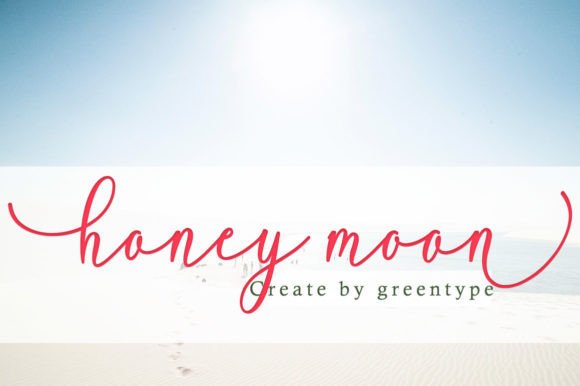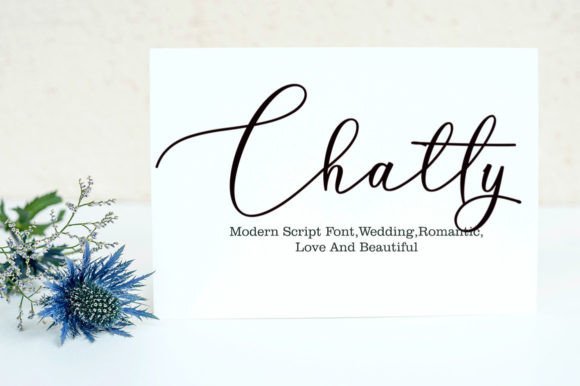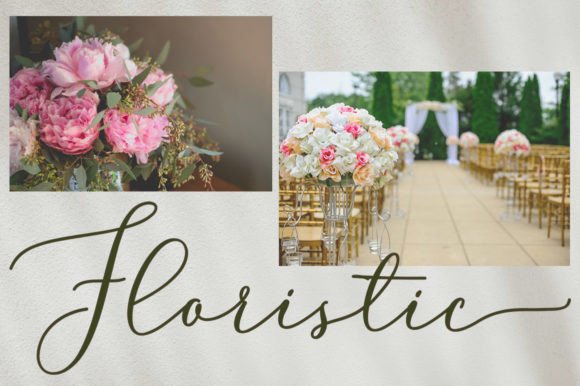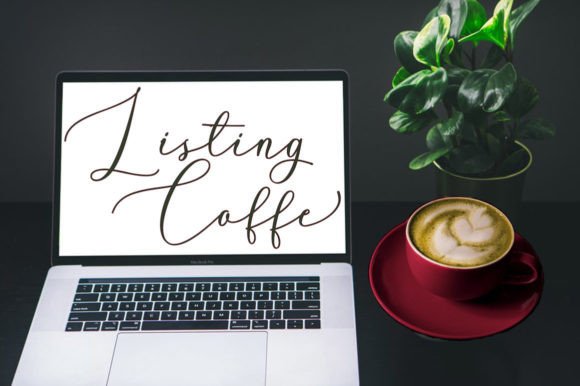
Introducing Chatty Font: The Delicate and Elegant Handwritten Font
Are you a designer or crafter looking for a font that exudes elegance and sophistication? Look no further than Chatty Font, a delicate and elegant handwritten font that is sure to capture your heart. With its distinct and well-balanced letters, Chatty Font is a masterpiece that can elevate any design to new heights.
The Characteristics of Chatty Font
Chatty Font is a handwritten font that boasts a unique and stylish aesthetic. Its delicate and elegant letters are carefully crafted to create a sense of refinement and poise. The font’s distinct characteristics include:
- Delicate and elegant letters: Each letter in Chatty Font is meticulously designed to convey a sense of sophistication and elegance.
- Well-balanced letters: The font’s letters are perfectly balanced, creating a sense of harmony and stability.
- Versatile style: Chatty Font is incredibly versatile, making it suitable for a wide range of design applications.
The Benefits of Using Chatty Font
So, why should you choose Chatty Font for your design projects? Here are just a few benefits of using this beautiful font:
- Adds elegance to your designs: Chatty Font can instantly elevate your designs, adding a touch of sophistication and refinement.
- Perfect for a variety of design applications: Whether you’re designing a logo, creating a social media graphic, or crafting a website, Chatty Font is a versatile choice that can adapt to any design need.
- Easy to read and understand: Despite its delicate and elegant nature, Chatty Font is surprisingly easy to read and understand, making it perfect for body text and headings.
How to Use Chatty Font in Your Designs
Using Chatty Font in your designs is easy and straightforward. Here are a few tips to get you started:
- Pair it with other fonts: Chatty Font pairs beautifully with other fonts, creating a stunning contrast that can add visual interest to your designs.
- Experiment with different colors: Chatty Font looks great in a variety of colors, from soft pastels to bold and bright hues.
- Use it for headings and body text: Chatty Font is suitable for both headings and body text, making it a versatile choice for any design project.
Inspiration and Ideas for Using Chatty Font
Still looking for inspiration on how to use Chatty Font in your designs? Here are a few ideas to get you started:
- Wedding and event designs: Chatty Font is perfect for wedding and event designs, adding a touch of elegance and sophistication to invitations, programs, and more.
- Branding and packaging: Use Chatty Font to create beautiful branding and packaging designs that stand out from the crowd.
- Social media graphics: Chatty Font is a great choice for social media graphics, adding a touch of personality and style to your posts and stories.
| Font Name | Chatty Font |
| Author | Greentype |
In conclusion, Chatty Font is a delicate and elegant handwritten font that is sure to capture your heart. With its distinct and well-balanced letters, versatile style, and ease of use, Chatty Font is the perfect choice for designers and crafters looking to add a touch of sophistication and elegance to their designs. So why wait? Fall in love with Chatty Font and start creating spectacular designs today!